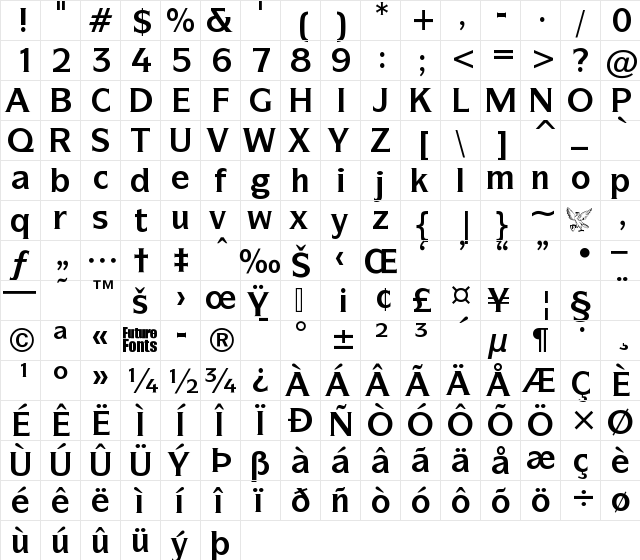
Surrey Bold Regular
Design Context for Surrey Bold Typeface
Surrey Bold is a composed and adaptable typeface that performs quietly and consistently across a wide range of design contexts. The heavy weight commands attention and anchors typographic hierarchies.